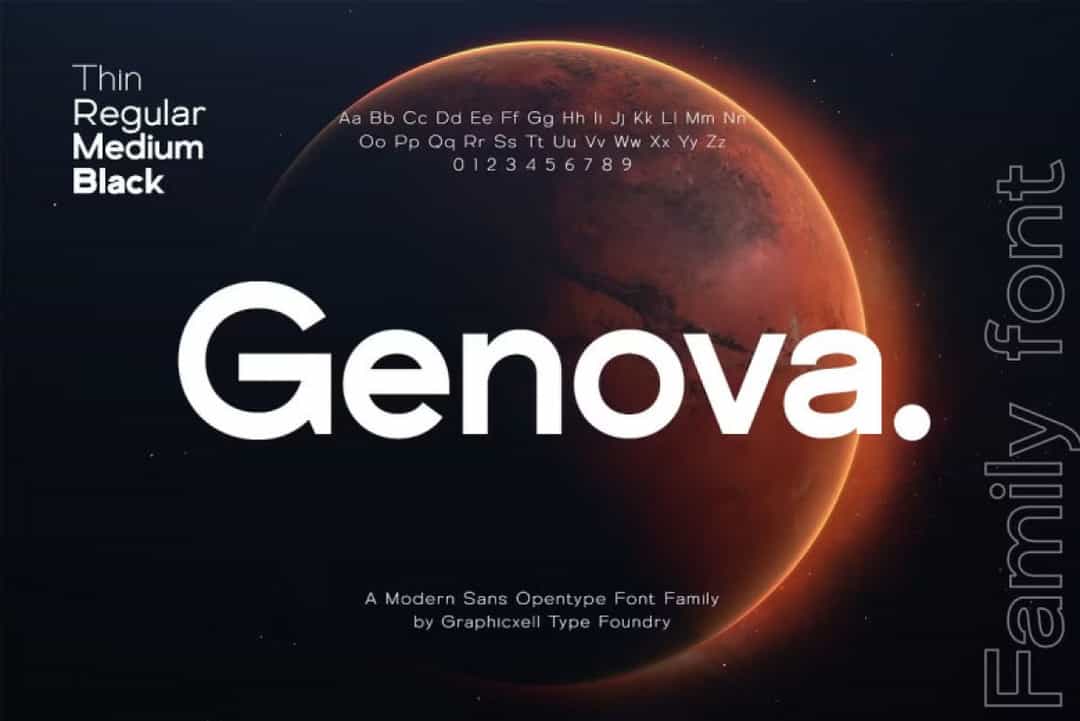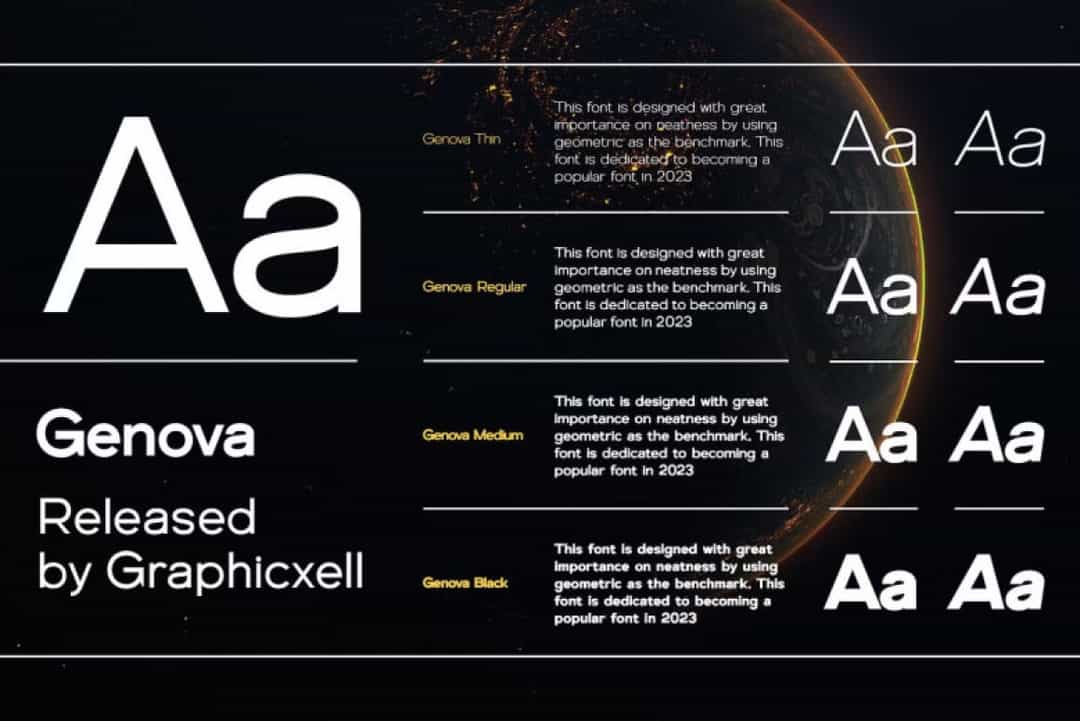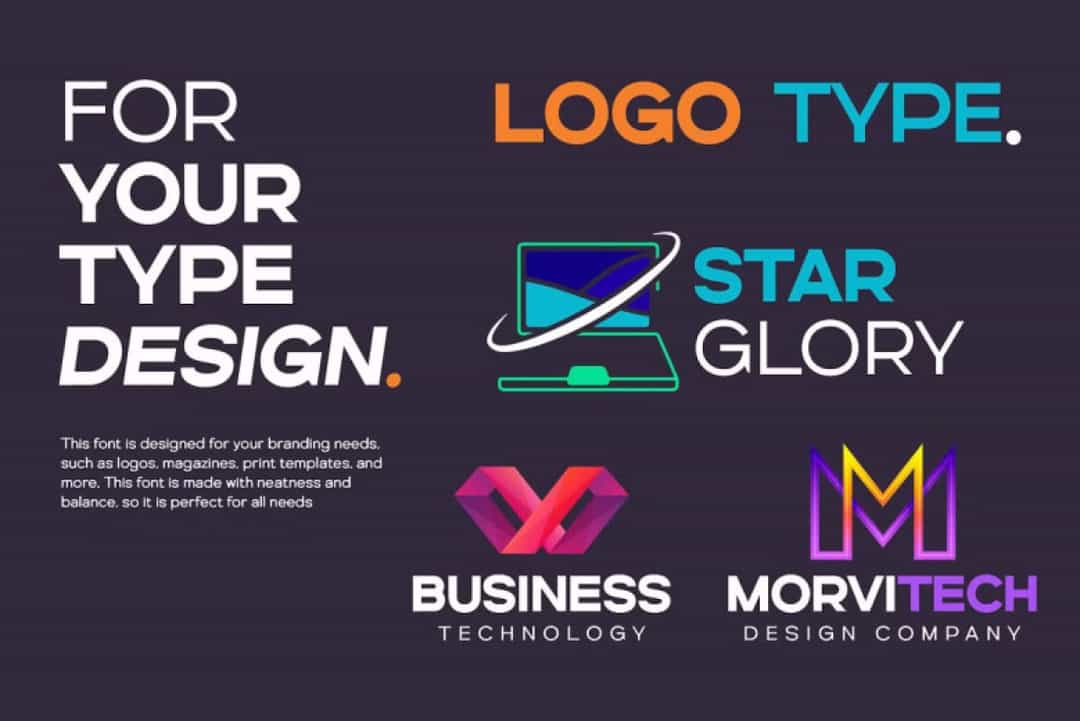
Genova is an elegant sans serif type family available in four variants – Thin, Regular Medium, Black and Thin – perfect for branding texts with long text lengths, logotypes, printing designs or other applications that require attractive typographic details.